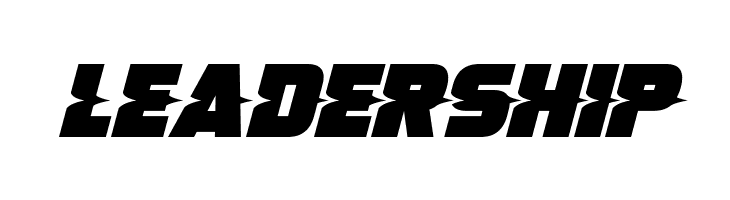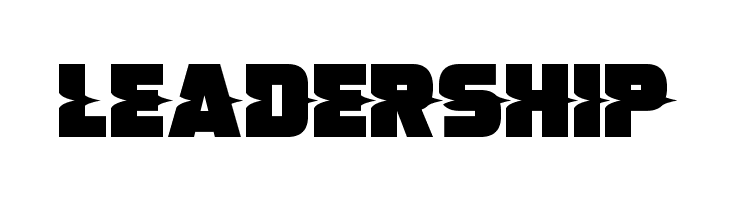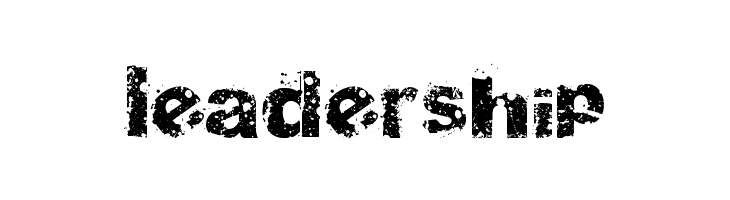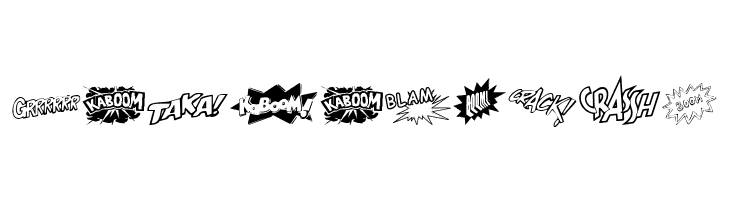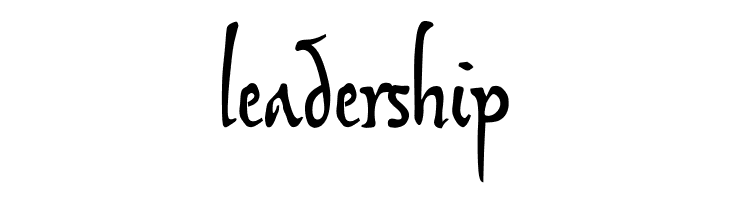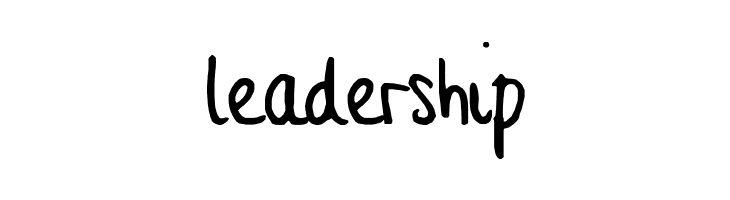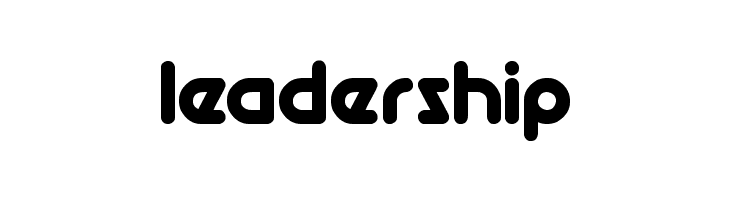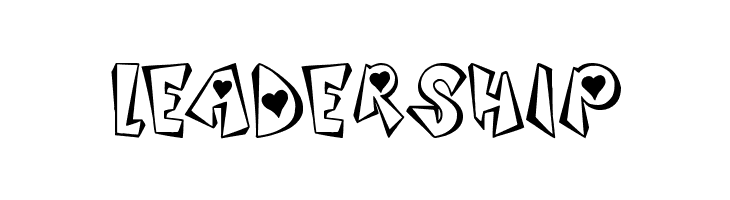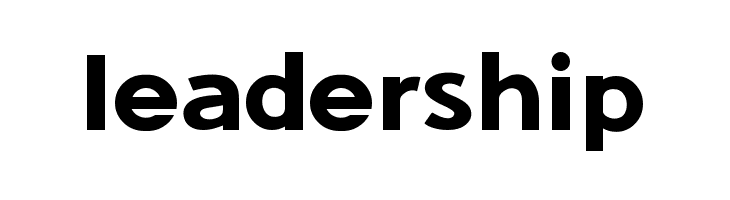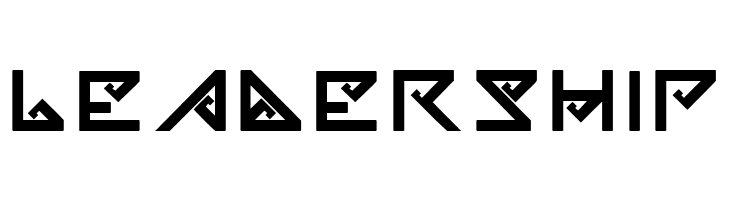
A bold, jagged font with a horror-inspired, dripping effect.
( Fonts by Maurice The Hormone Monster AUTTP )
A bold, textured font with a grunge-like, halftone pattern.
( zigzag - Bodat Na Ngalian )
A bold, geometric font with sharp angles and a modern style.
( Font Bureau - beinghairless.com )
A bold, geometric font with a three-dimensional outline and playful numerals.
( Fonts by www.pia-frauss.de )
A whimsical, artistic font with playful curves and unique letterforms.
( Fonts by www.philing.net )
A playful, casual handwritten font with rounded, irregular letterforms.
( Sudar Moko )
A modern, geometric sans-serif font with a clean and structured appearance.
( Fonts by Laurent Mouy )
A decorative font with gothic and organic influences, featuring intricate, twisted designs.
A modern, elongated font with a vertical emphasis and consistent line thickness.
( Fonts by Chequered Ink )
A condensed, geometric font with tall, narrow letterforms and a modern aesthetic.
A bold, geometric font with circular and semi-circular shapes, perfect for striking headlines.
( adinaochea.tumblr.com )
An abstract font combining geometric shapes with fluid, organic lines.
A clean, modern font with excellent readability and balanced spacing.
A playful, rounded font with a bold and friendly appearance.
A bold, rounded font with a playful and modern aesthetic.
A bold, dynamic display font inspired by comic book sound effects.
( Fonts by Jonathan Harris - www.tattoowoo.com )
A bold, decorative font with heart motifs and angular, playful characters.
A distressed, vintage-style font with a rugged, textured appearance.
A distressed, grunge-style font with a textured, rugged appearance.
( Jaxkes )
A bold, condensed font with elongated characters for dramatic impact.
A bold, modern sans-serif font with geometric shapes and uniform strokes.
A dynamic, hand-drawn font with angular, intersecting lines.
( Fonts by Darrell Flood )
A bold, playful handwritten font with a dynamic, brush-like style.
( Fonts by Darrell Flood )
A bold, italic, handwritten-style font with dynamic and expressive characters.
A whimsical, curly font with a playful, handwritten style.
A bold, distressed font with a grungy, urban style.